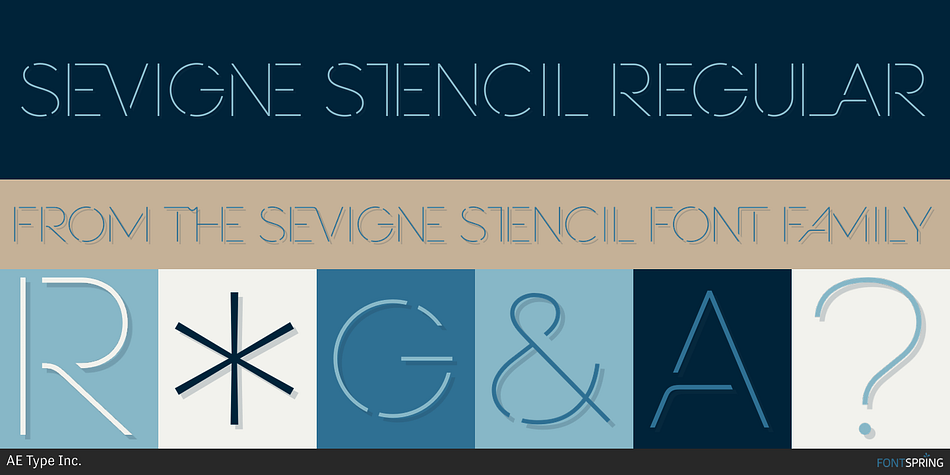
SEVIGNE STENCIL REGULAR
Sevigne Stencil is a stencil font family. This typeface has three styles and was published by AE Type Inc.
Sevigne [sey-vee-nyey] is a highly refined, contemporary geometric stencil, inspired by the ambience of high-end fashion and luxury combined with the raw, utilitarian nature of the stencil.
Sevigne [sey-vee-nyey] is a highly refined, contemporary geometric stencil, inspired by the ambience of high-end fashion and luxury combined with the raw, utilitarian nature of the stencil. The inclusion of over 130 unique ligatures expand it’s sensibility of alluring, well-balanced letterforms and distinctive style. The stencil marks are atypically placed and vary throughout, giving it a purposely forward presence.
Stylistically, as an all-caps typeface, Sevigne exudes a greater sense of harmony and polish due to it’s unicase form where the interplay of a limited amount of characters is the focus. Subtle, considered details are found within individual letters, contrasted by the complex, intersecting forms that make up the various ligatures.
With multiple stylistic sets added to the expanded ligatures, individual letters and ligature pairs can be carefully exchanged to fine-tune text settings for a unique custom type solution.
Expanded set of over 130 Ligatures, including alternates (ae, oe, fi, fl, ffi, ffl, ffj, ff, fh, fj, ft, tt, th, ct, st, oo, og, go, ogo, gog, la, ea, ev, ew, fy, ez, et, oc, ga, do, uv, vu, yu, uy, nn, mm, xy, yx, ao, oa, ac, da, aq, nt, aa, ll, ss, ut, tu, ka, ca, ag, of, off, co, ne, nr, nl, nd, nk, hn, mn, me, mp, al, an, af, ar, ak, ah, ad, ab, and, gg, all, co, ço, he, the, tl, tn, tf, tr, tk, td, tb, te, am, ame, amb, tm, ap, tp, wu, uw, kt, tz, ra, za, mk, xx, yy, vv, ww, ky, fu, oq, cc, cq)
Alternate characters (A, G, R, Q, _, $, ®, •, ¶)
Slashed zero